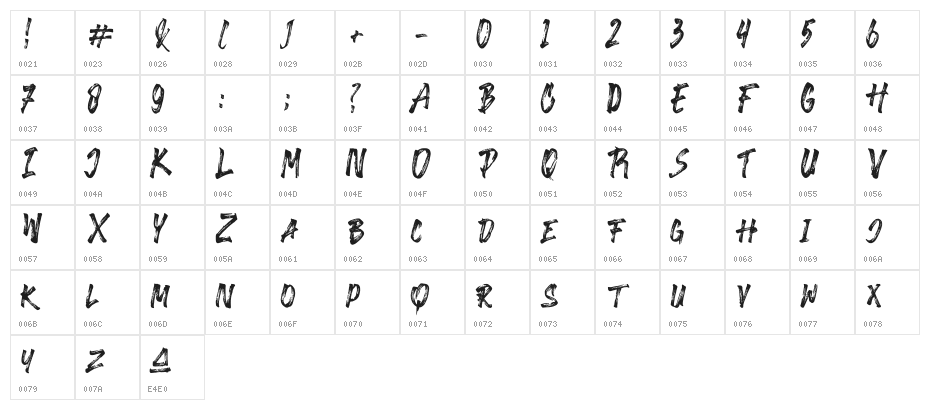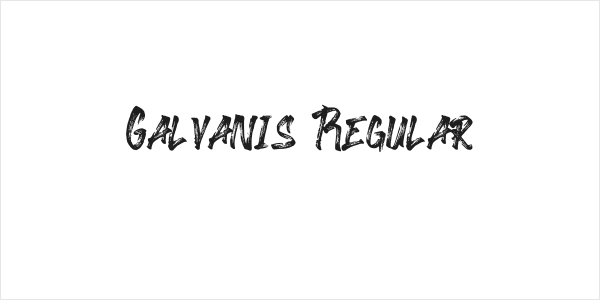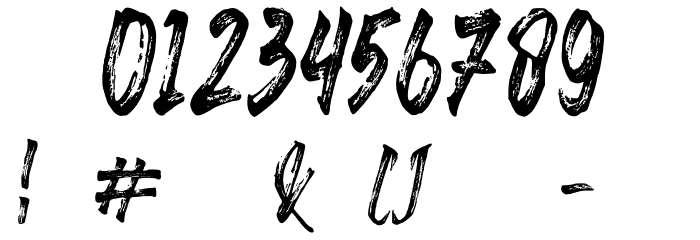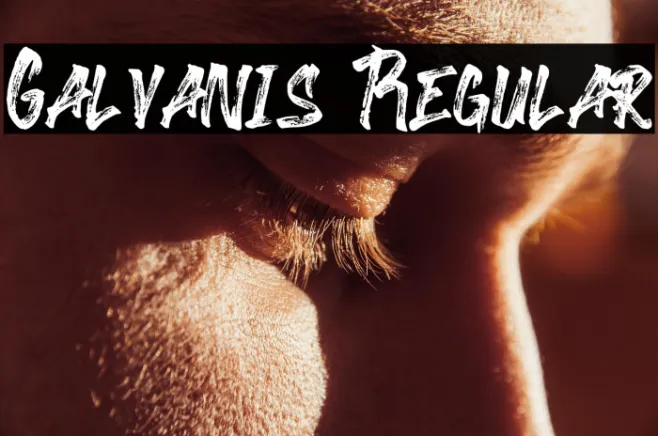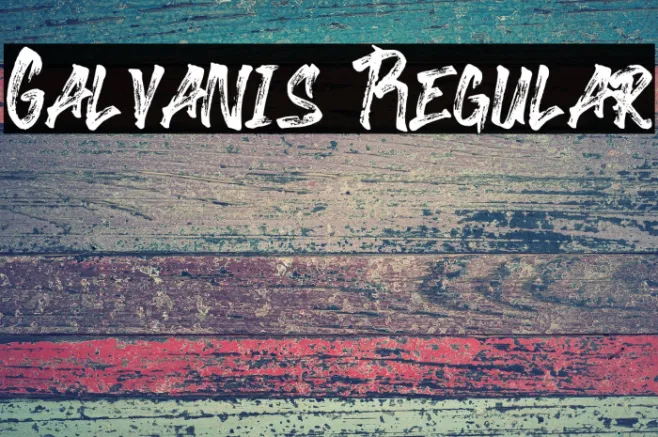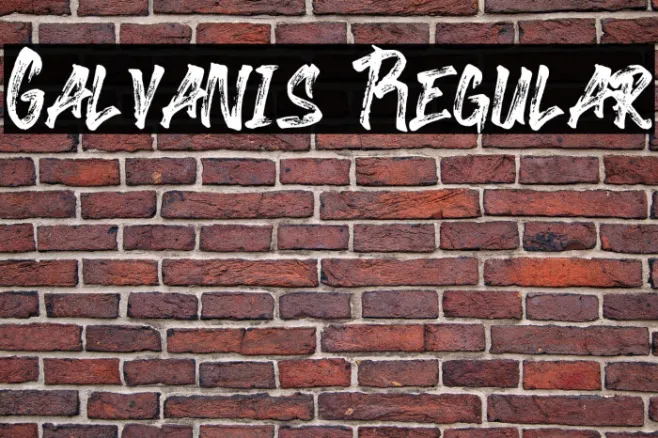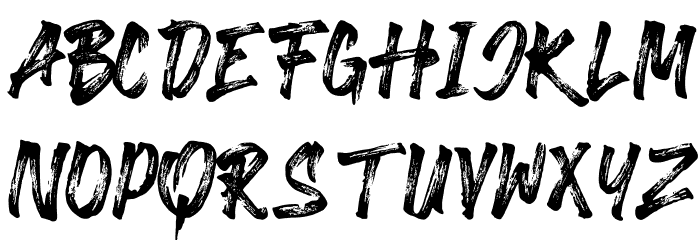
Galvanis Regular Font
Galvanis Regular Description
This font features a bold and expressive brush style, characterized by its dynamic and energetic strokes. The letters have a hand-painted appearance, with varying thicknesses that create a sense of movement and spontaneity. The uppercase and lowercase letters maintain a consistent style, with slightly irregular edges that add to the handcrafted feel. The numbers and special characters are equally bold, ensuring a cohesive look across all elements. This font's raw and artistic aesthetic makes it ideal for projects that require a strong visual impact.